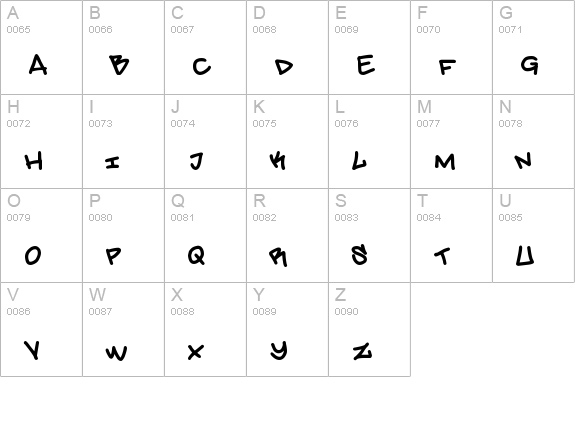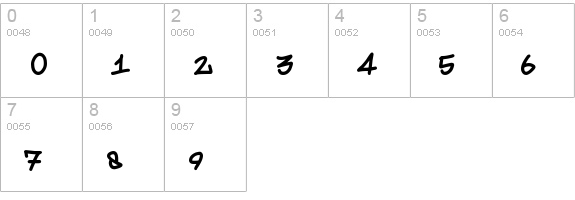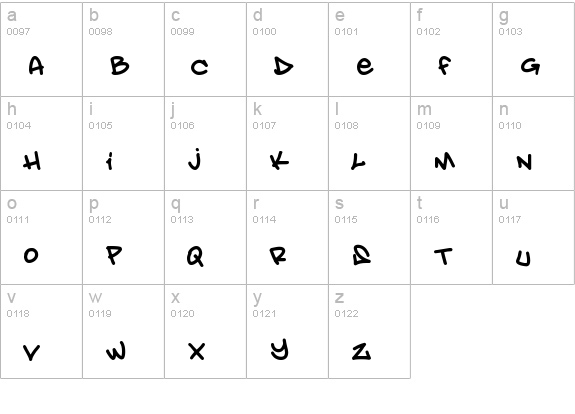
Amsterdam Graffiti Font Details
The Amsterdam Graffiti font captures the vibrant and dynamic energy of street art in the bustling city of Amsterdam. This bold and edgy font is perfect for adding a touch of urban flair to your designs. With its rough and rebellious aesthetic, Amsterdam Graffiti brings a sense of urban cool to any project. What makes Amsterdam Graffiti font even more appealing is that it is available for free download at FontsMarket.com. Now you can easily incorporate this striking font into your designs without any cost. Whether you're working on a poster, album cover, or branding project, Amsterdam Graffiti font is sure to make a statement and elevate your design to a whole new level. Download it today and let your creativity run wild with this unique and expressive typeface.